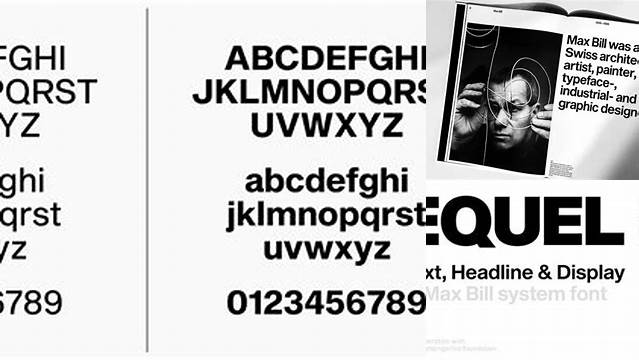
Sequel Sans Display Font: Free Download & Usage Guide
Hey there, design enthusiasts! If you're on the hunt for a versatile and stylish font to elevate your projects, look no further than the Sequel Sans Display font family. This modern sans-serif typeface is a real gem, offering a clean and contemporary aesthetic that's perfect for a wide range of applications. The best part? You can score a Sequel Sans Display font family free download, making it accessible to everyone. In this comprehensive guide, we'll dive deep into everything you need to know about this fantastic font, including its features, usage, and where to find your free download. So, let's get started, guys!
Why Choose Sequel Sans Display? Unveiling Its Amazing Features
First things first, why should you choose Sequel Sans Display? Well, there are a bunch of great reasons! This font family is designed with both style and functionality in mind. Its clean lines and balanced proportions make it incredibly readable, whether you're using it for headlines, body text, or even in smaller sizes. Sequel Sans Display is super versatile, working well in various design projects, from website design and branding to print materials and social media graphics. One of the standout features is its wide range of weights and styles. You'll find everything from light and delicate versions to bold and impactful ones, giving you the flexibility to create different looks and feels. Also, the font includes a comprehensive character set, so you won't miss any special characters or language support. And because it's a sans-serif font, it exudes a modern and minimalist vibe that's super popular right now. Another amazing thing is its kerning, which is the spacing between the characters, it's really well done. This ensures the letters look great together, and the text is easy to read. This is a critical detail that can seriously affect how a font performs and looks. Additionally, Sequel Sans Display is really good for legibility, which is something you want to consider for all of your projects, especially in the digital space. That is why it's so great for headings because it's bold and draws the eye in. But it also has that touch of grace that makes it lovely to read in blocks of text. So, to wrap it up, Sequel Sans Display is an awesome font because it's flexible, clear, and looks great across different uses. It's got a bunch of features that make it a top pick for designers.
The Versatility of Sequel Sans Display: From Websites to Print
One of the best things about Sequel Sans Display is how well it adapts to different design projects. You can use it everywhere, and it will look awesome. Let's get real, we all know that there are fonts that seem to work well only in specific contexts, but Sequel Sans Display is made to be versatile, and you can use it everywhere.
For websites, Sequel Sans Display brings a clean and modern vibe. Its readability makes it perfect for headings, subheadings, and body text, ensuring visitors can easily navigate and enjoy your content. Whether you're creating a sleek portfolio site, a corporate landing page, or a vibrant blog, this font enhances user experience by making your text both attractive and accessible. The various weights allow you to create a visual hierarchy, guiding the reader's eye and emphasizing key information.
When it comes to branding, Sequel Sans Display is a rockstar. Its neutral yet stylish appearance makes it ideal for creating logos, brand identities, and marketing materials. It conveys a sense of professionalism and modernity, which is important in today's fast-paced business world. This font's versatility means it complements almost any brand aesthetic, whether you're aiming for a minimalist or a more creative look.
For print materials, Sequel Sans Display retains its charm and readability. It works beautifully in brochures, flyers, posters, and business cards, ensuring that your message is delivered with clarity and style. The different weights and styles can be mixed and matched to create visually engaging layouts that capture attention. Also, the font’s legibility makes it ideal for both short bursts of text and longer reads, so your audience can always have an easy time reading your content.
Finally, don't underestimate the power of social media. Sequel Sans Display is perfect for creating eye-catching graphics and captions. Its clean lines and modern feel make it ideal for headlines, quotes, and promotional content, helping your posts stand out in the crowded social media landscape. With this font, your content will look professional and on-trend.
So there you have it! Sequel Sans Display is an awesome font that gives you style and versatility. With its clean design and the freedom of a Sequel Sans Display font family free download, you're ready to create some amazing stuff. Whether you're designing for the web, print, or social media, this font has got you covered. Now, go forth, download, and start creating! Happy designing, guys!